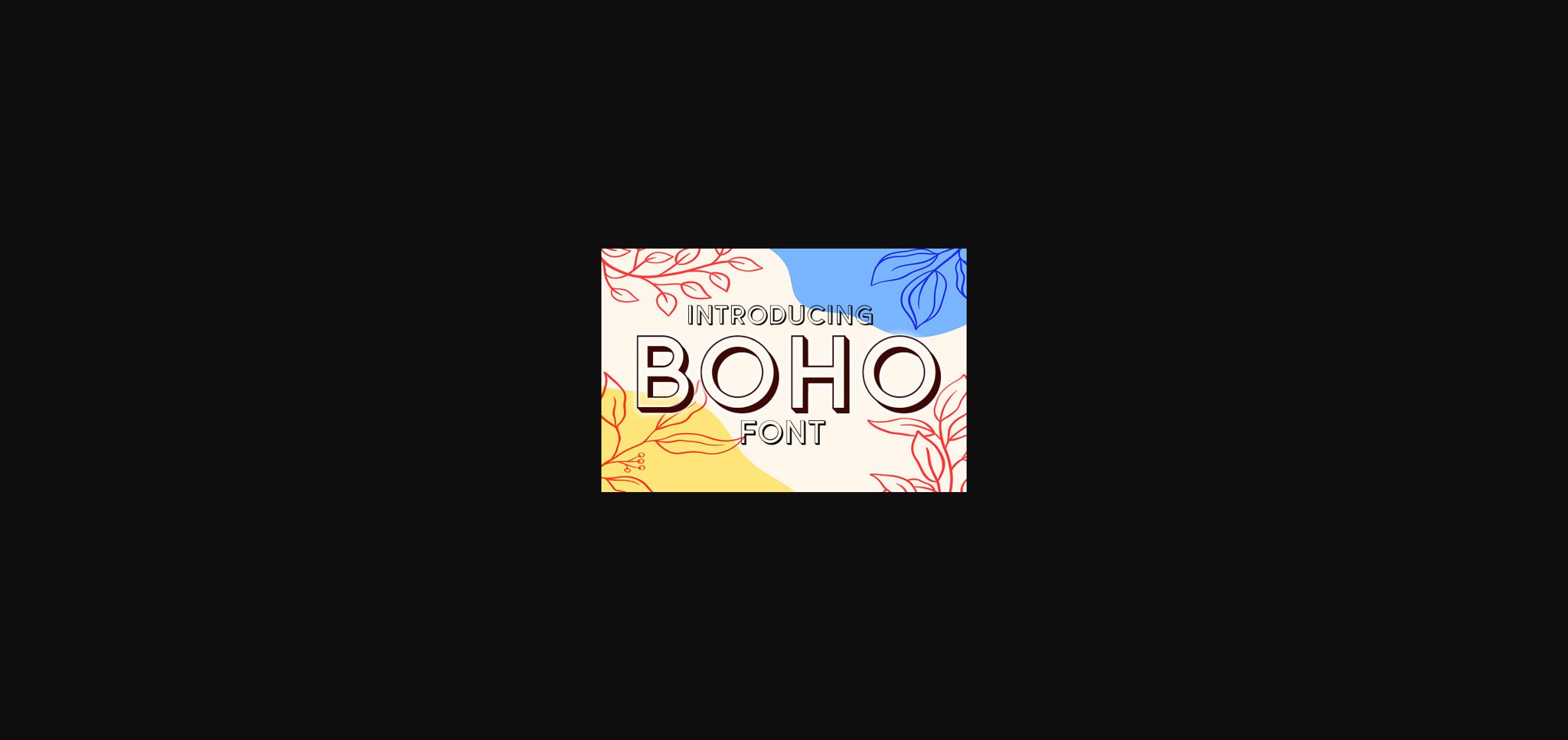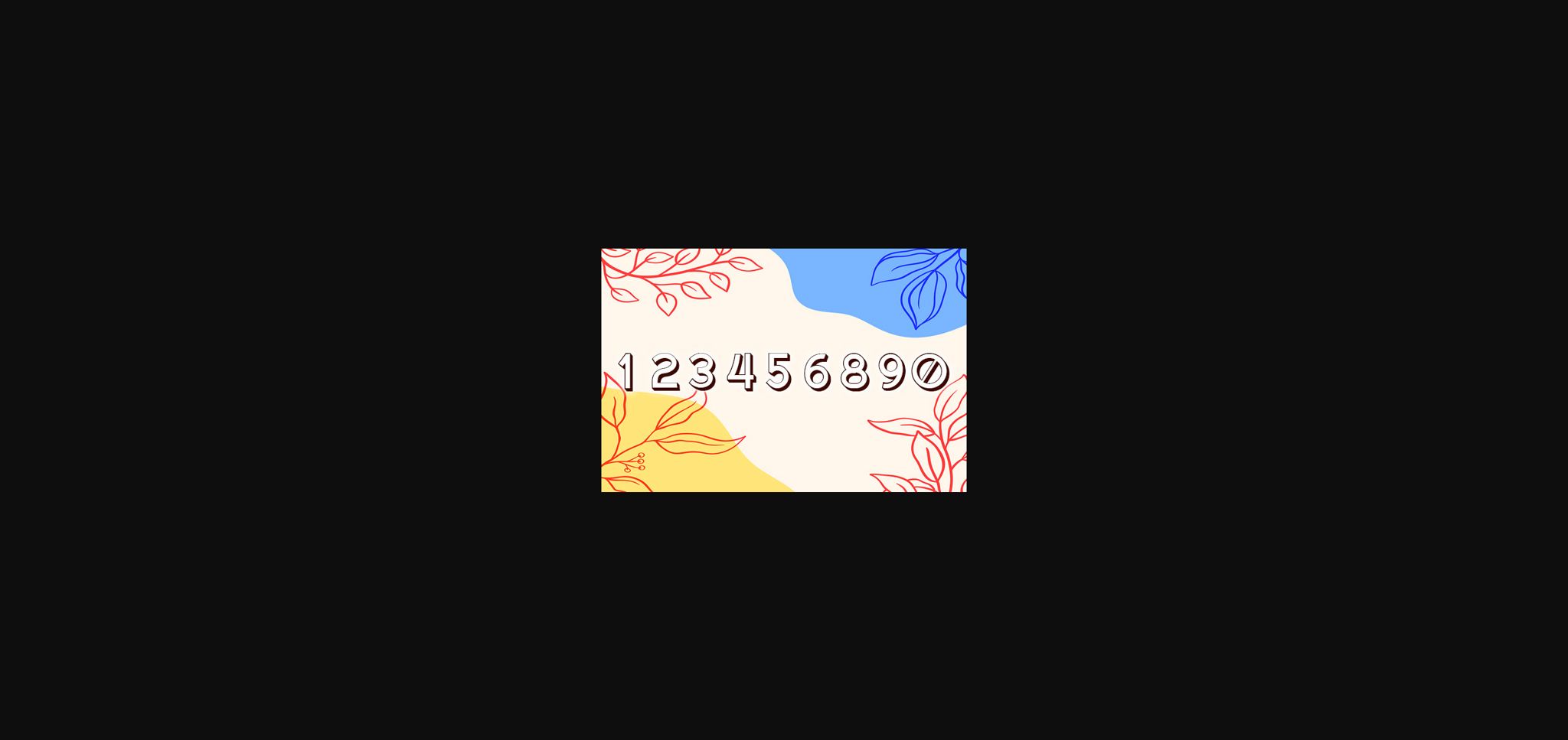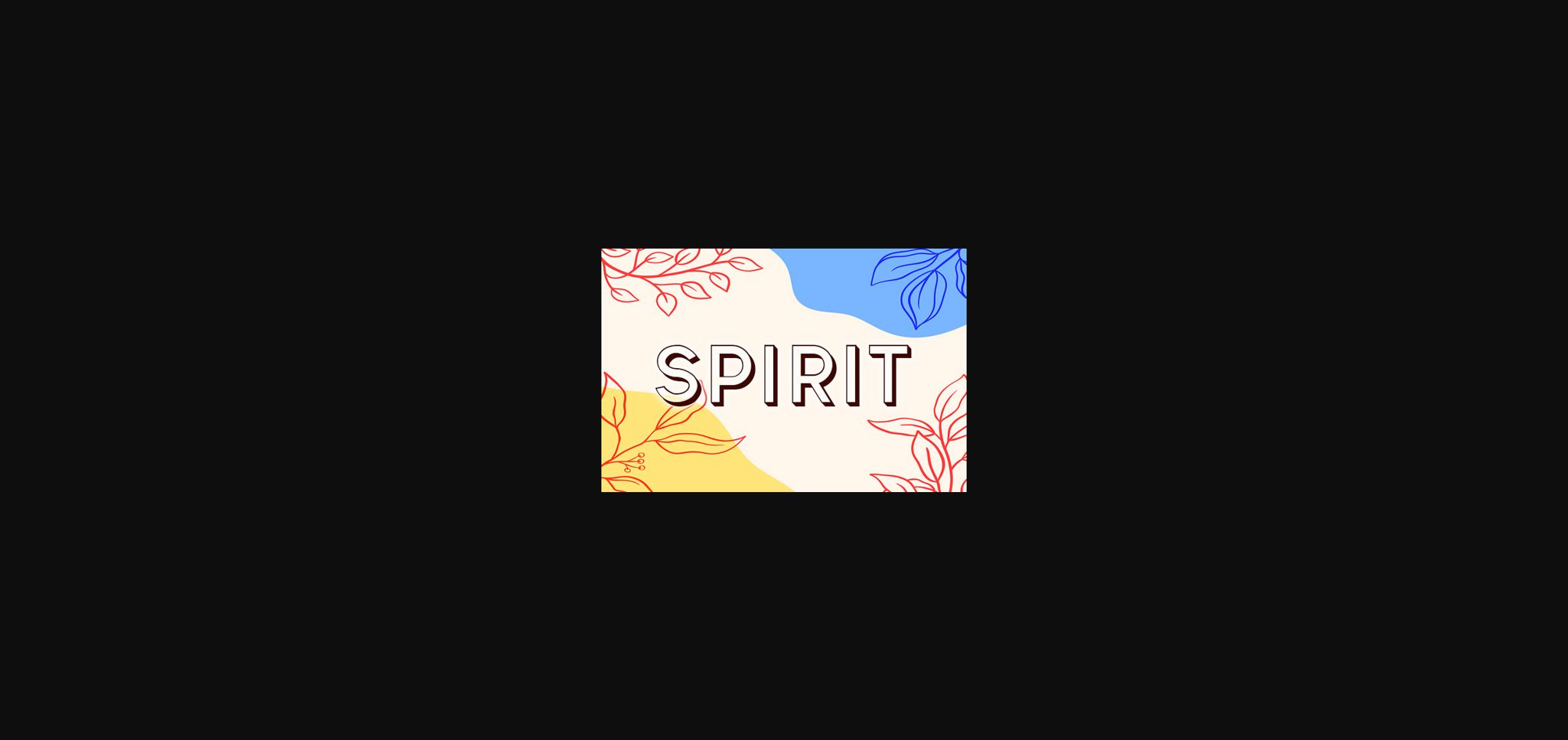
HomeSans Serif FontsBoho Font Sans Serif Fonts Boho Font FacebookXPinterestWhatsApp 1 of 7 ... Boho Font Poster 2... Boho Font Poster 3... Boho Font Poster 4... Boho Font Poster 5... Boho Font Poster 6... Boho Font Poster 7... About Boho Font Boho is a 3D Sans Serif typeface that will make your designs look perfect. Use this font on shirts, posters, and headlines. DOWNLOAD NOW People also explored Haney Lovely Font Welling Font Hunting Font Sweety Mom Font Palm Summer Font Gloryouss Font Stroketastic Font Mandala Handmade Font Study Book 374 0 TagsBohoBoho Font Previous articleCountless FontNext articleGogh Font LEAVE A REPLY Cancel reply Comment: Please enter your comment! Name:* Please enter your name here Email:* You have entered an incorrect email address! Please enter your email address here Website: Save my name, email, and website in this browser for the next time I comment. Personal Use Free Royal Bengal Tiger Personal Use Free Read more about this font Starting Live Personal Use Free Read more about this font Beat My Guest Personal Use Free Read more about this font Hanifah Personal Use Free Read more about this font BLOG Exploring Font Trends Shaping Communication in the Digital Era Fonts, like all design elements, are subject to trends. They play a crucial role in communicating a brand's personality,... Modern Sans-Serif Fonts That Brands Love in 2025 Fonts That Capture the Spirit of New York City How to Cut Any Font on Cricut: Convert a Font to SVG (Free)